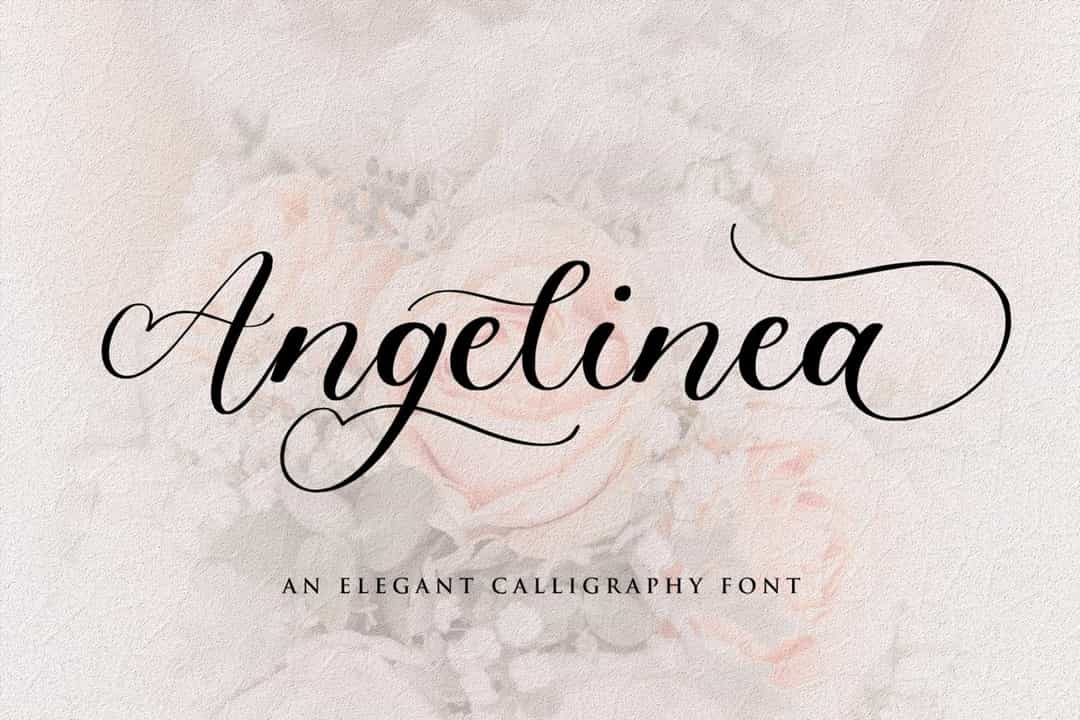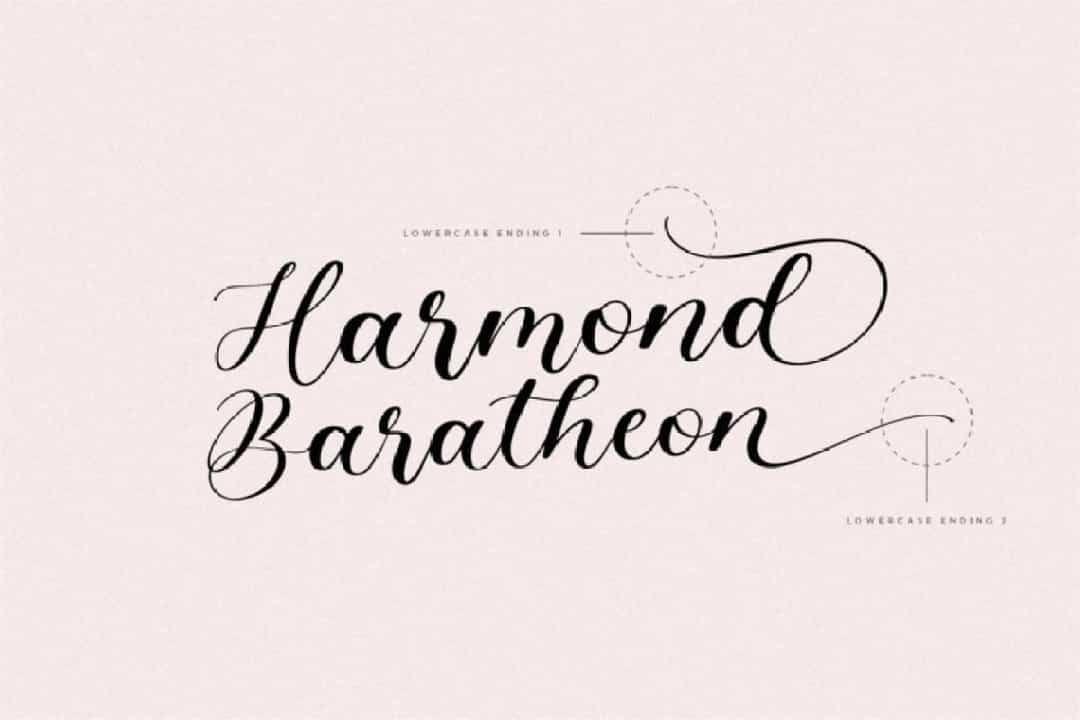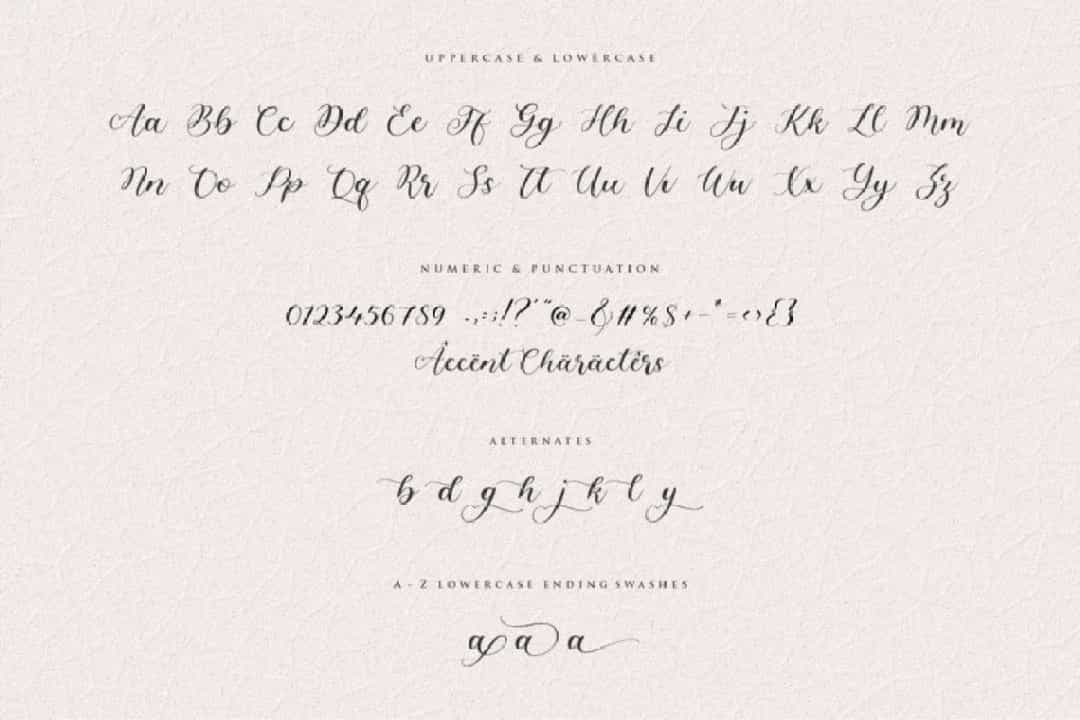
Discover Angelinea Font, part of the Calligraphy collection—a versatile and unique font perfect for adding a personal touch to your projects. Download it for free and enjoy crafting designs with style, from invitations to social media posts. This font is available exclusively for personal use, giving you the freedom to create without limits. Unlock your creativity with Angelinea Font today!
The typeface is a script font with nice slender strokes and evenly designed characters. That way it is perfect for many designs – it is even PUA encoded to enable one to access all its glyphs and swashes easily!